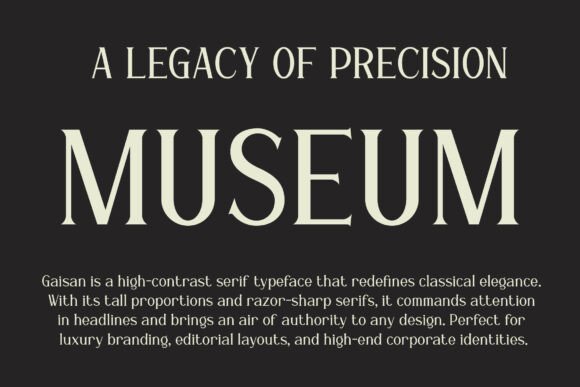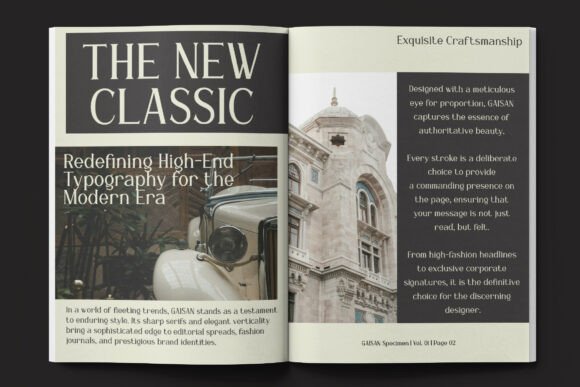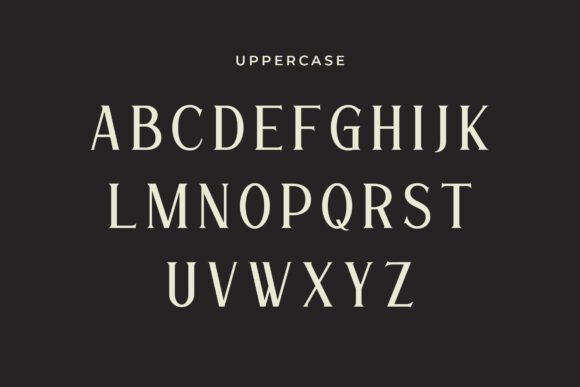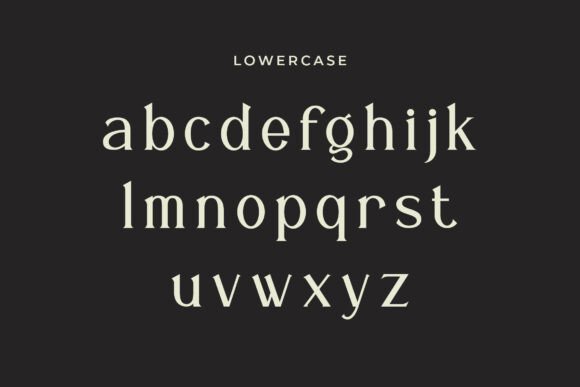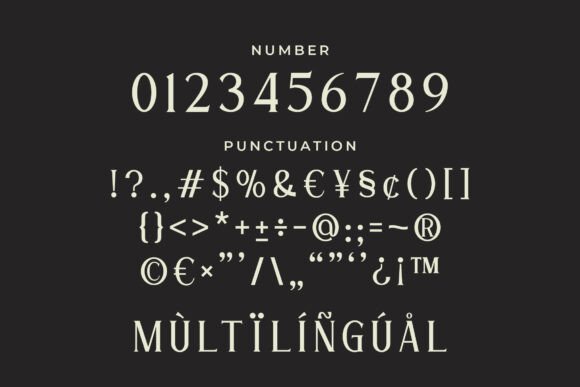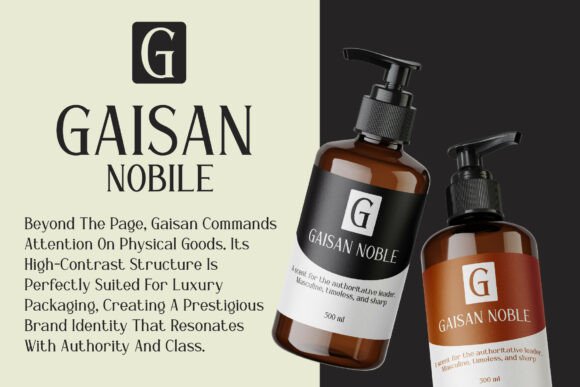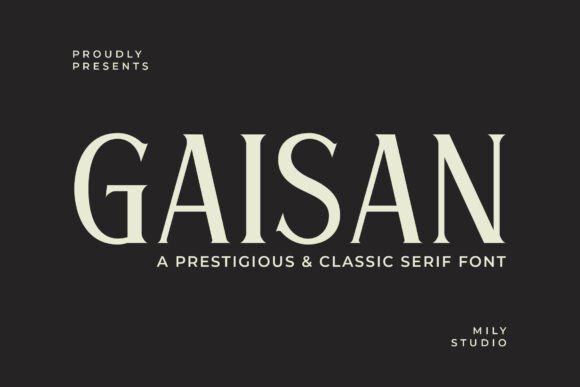
Introducing Gaisan Font: The Epitome of Elegance and Authority
In the realm of typography, a font can make or break the visual identity of a brand. For those seeking to convey power, sophistication, and high-end quality, Gaisan Font emerges as a stellar choice. Designed with precision and elegance in mind, Gaisan is a sharp, high-contrast serif typeface that commands attention and exudes class.
The Design Philosophy Behind Gaisan
Gaisan’s design is rooted in the pursuit of perfection. Its razor-sharp serifs and slender verticality set it apart from traditional serif typefaces, offering a bold yet refined aesthetic. Every stroke, every curve, and every detail in Gaisan has been meticulously crafted to provide a sharp, prestigious look that speaks of authority and luxury. This font is not just a means of communication; it’s a statement of intent.
Key Features of Gaisan Font
- High Contrast: The high contrast between thick and thin strokes in Gaisan gives it a dramatic appearance, making it perfect for headlines and titles where impact is crucial.
- Razor-Sharp Serifs: The serifs in Gaisan are designed to be sharp and precise, adding to the font’s luxurious feel and making it stand out in any medium.
- Slender Verticality: Gaisan’s tall and slender structure contributes to its elegant and commanding presence, ideal for luxury branding and high-end product packaging.
- Versatility: While Gaisan excels in headlines and titles, its clarity and readability also make it suitable for body text in high-end publications and luxury brand communications.
Applications of Gaisan Font
Gaisan’s unique characteristics make it an excellent choice for a variety of applications where projecting an image of luxury, authority, and precision is essential. Some of the ideal uses for Gaisan include:
- High-End Product Packaging: For luxury goods, the packaging is often the first point of contact with potential customers. Gaisan can help create a lasting impression of quality and exclusivity.
- Elite Corporate Branding: Companies aiming to position themselves as leaders in their industry can use Gaisan to convey strength, stability, and sophistication.
- Luxury Fashion Labels: In the competitive world of luxury fashion, Gaisan can help brands stand out with its elegant and commanding typography.
- Premium Magazine Titles: For high-end publications, Gaisan offers a stylish and authoritative look that can attract the target audience.
Why Choose Gaisan Font?
In a sea of typefaces, Gaisan stands out for its ability to convey luxury, precision, and authority. Here are a few reasons why designers and brands might choose Gaisan over other fonts:
- Uniqueness: Gaisan’s sharp serifs and high contrast offer a distinctive look that can help brands differentiate themselves.
- Legibility: Despite its elegant and slender design, Gaisan maintains high legibility, making it practical for use in both digital and print media.
- Versatility: Gaisan can be used across a range of mediums, from billboards and magazine covers to digital interfaces and product packaging.
Gaisan Font is a powerful tool for designers and brands looking to make a statement. Its sharp, high-contrast serifs, slender verticality, and commanding presence make it an ideal choice for luxury branding, high-end product packaging, and premium publications. With Gaisan, you can elevate your brand’s visual identity to convey authority, elegance, and sophistication. Whether you’re working on a luxury fashion project, a high-end product launch, or a premium magazine title, Gaisan is sure to leave a lasting impression.
Experimenting with Gaisan in your designs can open up new possibilities for expressing luxury and precision. With its unique blend of traditional elegance and contemporary boldness, Gaisan is poised to make a significant impact in the world of typography and design.